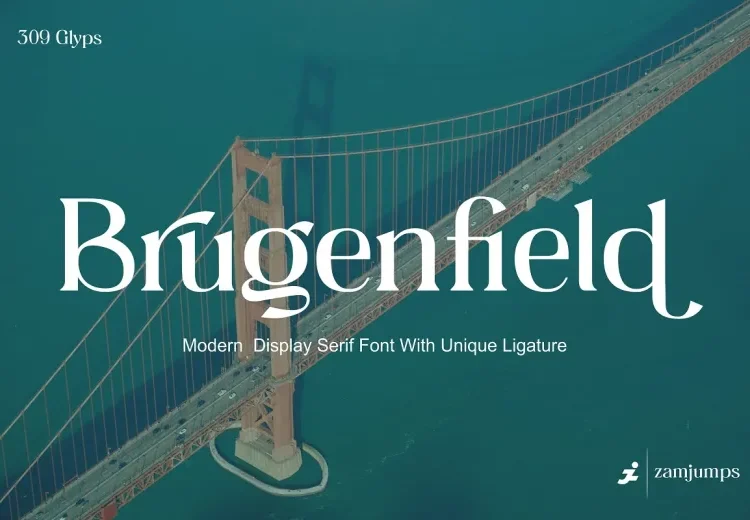
Brugenfield Font
Brugenfield is a contemporary display serif font designed with a distinctive ligature and a luxurious, premium feel. Its sophisticated design makes it an exceptional choice for various high-end applications, setting it apart from other serif fonts with its unique bindings and elegant character.
Key Features of Brugenfield:
Distinctive Ligature: Brugenfield features a unique ligature that adds a touch of sophistication and sets it apart from conventional serif fonts. This distinctive element enhances its premium appearance and contributes to its luxurious style.
Contemporary Elegance: Designed with care to ensure a refined and upscale look, Brugenfield blends modernity with classic serif elements, making it ideal for projects that demand a high level of elegance and professionalism.
Versatile Applications: Brugenfield is perfect for a range of uses, including headlines, logos, and titles. Its formal and polished appearance also makes it suitable for labels, invitations, book covers, and other printed materials.
Ideal Uses for Brugenfield:
Headlines and Titles: Use Brugenfield for impactful headlines and titles that require a bold yet elegant presence, ensuring your text stands out with a sophisticated touch.
Logos and Branding: Create distinguished logos and branding materials with Brugenfield, leveraging its unique ligature and luxurious style to enhance brand identity.
Formal Formats: Apply Brugenfield to formal formats such as labels, invitations, and books, adding a refined and premium look to your designs.
Packaging and Stationery: Incorporate Brugenfield into packaging designs and stationery for fashion, makeup, or other high-end products, providing a touch of class and elegance.